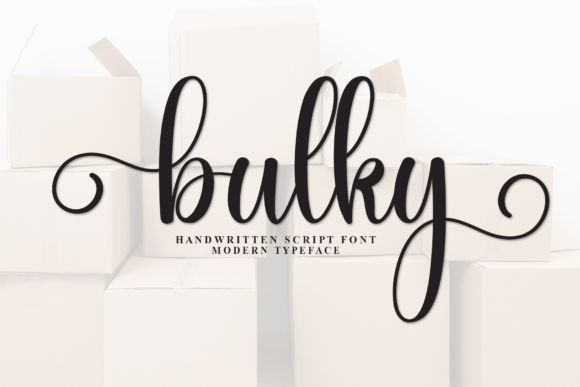
Bulky Font: Elevate Your Designs with Elegance and Sophistication
In the world of typography, a well-chosen font can make all the difference in elevating your design from ordinary to extraordinary. If you’re a designer or crafter looking for a stylish and versatile font to add a touch of elegance and contemporary charm to your work, look no further than Bulky Font. This stunning script font is designed to capture the beauty of hand-drawn calligraphy with a modern twist, making it perfect for a wide range of design applications.
The Characteristics of Bulky Font
Bulky Font boasts a range of characteristics that set it apart from other fonts. Its graceful strokes and fluid curves create a sense of movement and flow, while its carefully crafted letterforms ensure that each letter is a work of art in its own right. The font’s modern twist on traditional calligraphy gives it a fresh and contemporary feel that’s sure to appeal to designers and crafters looking for a unique and stylish font.
What Makes Bulky Font So Versatile?
One of the key benefits of Bulky Font is its versatility. Whether you’re designing a logo, creating invitations, working on packaging, or crafting social media graphics, this font is sure to add a refined and sophisticated touch to your design. Its natural flow and polished details make it perfect for a wide range of design applications, from elegant wedding invitations to stylish brand logos.
The Benefits of Using Bulky Font
So why choose Bulky Font for your design projects? Here are just a few benefits of using this stunning script font:
- Elegance and sophistication: Bulky Font adds a touch of refinement and luxury to any design, making it perfect for high-end brands and designers.
- Versatility: With its natural flow and polished details, Bulky Font is suitable for a wide range of design applications, from logos and invitations to packaging and social media graphics.
- Unique and stylish: Bulky Font’s modern twist on traditional calligraphy makes it a unique and stylish addition to any design.
How to Use Bulky Font in Your Designs
Using Bulky Font in your designs is easy. Here are a few tips to get you started:
- Pair it with a simple font: Bulky Font’s elegant and sophisticated style makes it perfect for pairing with a simple font to create a striking contrast.
- Experiment with different sizes: Bulky Font looks great in a range of sizes, from large and bold to small and delicate.
- Add some flair with flourishes: Bulky Font’s fluid curves and graceful strokes make it perfect for adding flourishes and swashes to your design.
In conclusion, Bulky Font is a stylish and versatile script font that’s perfect for designers and crafters looking to add a touch of elegance and sophistication to their work. With its graceful strokes, fluid curves, and carefully crafted letterforms, it’s sure to capture the beauty of hand-drawn calligraphy with a modern twist. Whether you’re designing logos, invitations, packaging, or social media graphics, Bulky Font is the perfect choice for adding a refined and sophisticated touch to your design.
Get Ready to Elevate Your Designs with Bulky Font